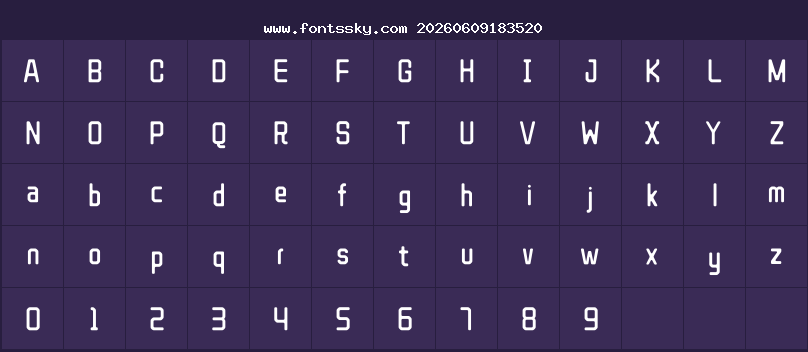
WDXL 滑油字 SC Preview
• Font Name: WDXL 滑油字 SC
• Full Font Name: WDXL 滑油字 SC
About WDXL 滑油字 SC.ttf
WDXL 滑油字 SC.ttf is a modern, elegant sans-serif font designed for ultimate readability and visual harmony. Perfect for branding, headlines, web design, and print materials.